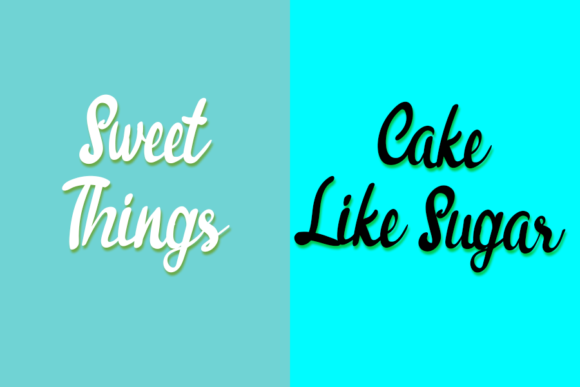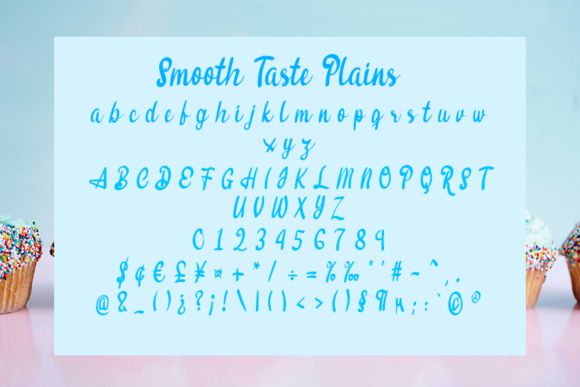
Introduction to Smooth Taste Font
As I sat in my cozy little studio, surrounded by half-finished projects and scattered design materials, I stumbled upon the perfect font to elevate my creative project: the Smooth Taste Font. Its dainty and fun handwritten style immediately caught my attention, and I couldn’t help but envision it perfectly on the cover of a romance novel or a magazine.
The Smooth Taste Font is a treasure trove for designers, offering a high-quality, elegant style that’s perfect for adding a touch of nostalgia to any project. With its free download option, it’s easily accessible and ready to be used in a variety of creative endeavors. Whether you’re working on a design project that requires a transparent background or a beautiful book title, this font is an excellent design resource to have in your arsenal.
What sets the Smooth Taste Font apart from other fonts is its unique ability to evoke a sense of romance and elegance, making it a valuable addition to any designer’s toolkit. In this article, we’ll delve deeper into the world of this enchanting font and explore its many uses and applications.
Key Features of Smooth Taste Font
- High-quality, professional font ideal for creative projects and design resources.
- Transparent background allows for seamless integration with any design, making it perfect for graphic designers and digital artists.
- Unique, modern design with a sleek and sophisticated aesthetic, making it suitable for a wide range of creative projects.
- Perfect for use in logos, branding materials, posters, and other visual elements where a smooth, high-quality font is desired.
Honest Review: Smooth Taste Font
Here are some things that I really like about the Smooth Taste Font: ✨
- The font has a sleek and modern aesthetic that’s perfect for a variety of design projects.
- The high quality of the font is evident, even when used on a transparent background.
- The font is highly customizable, making it easy to adjust to suit the needs of your project.
However, I did encounter a few limitations while using the Smooth Taste Font: ⚠️
- The font is a bit on the heavier side, which may not be suitable for all design projects.
- The font family is relatively small, which may limit its versatility.
Overall, I’m impressed with the Smooth Taste Font. It’s a great design resource that’s perfect for creative projects that require a modern and sleek aesthetic. While it may have a few limitations, the benefits far outweigh the drawbacks. I would definitely recommend the Smooth Taste Font to anyone looking for a high-quality design resource.
Tips for Getting the Most Out of Smooth Taste Font
Experiment with different font sizes, colors, and styles to achieve the desired effect. Combine the Smooth Taste Font with other design elements, such as images or shapes, to create visually appealing designs.
The Smooth Taste Font is ideal for creative projects, such as:
• Social media graphics and presentations
• Logos and branding materials
• Infographics and data visualizations
• Written content, such as blog posts and articles